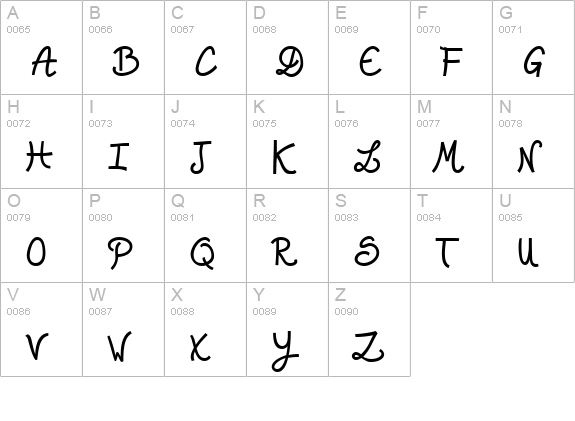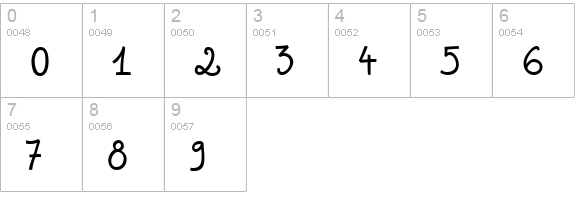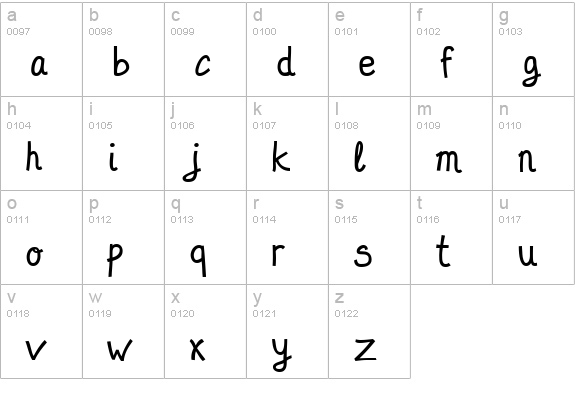
Desard Font Details
Desard font is a modern and stylish typeface that exudes elegance and sophistication. With its sleek lines and contemporary design, Desard is perfect for a wide range of projects, from branding to web design. This versatile font is sure to make your text stand out and leave a lasting impression. What makes Desard font even more appealing is that it is completely free to download. Yes, you read that right! You can easily get your hands on this stunning font at FontsMarket.com without spending a dime. Don't miss out on this fantastic opportunity to enhance your creative projects with the beautiful Desard font. Download it today and let your designs shine!